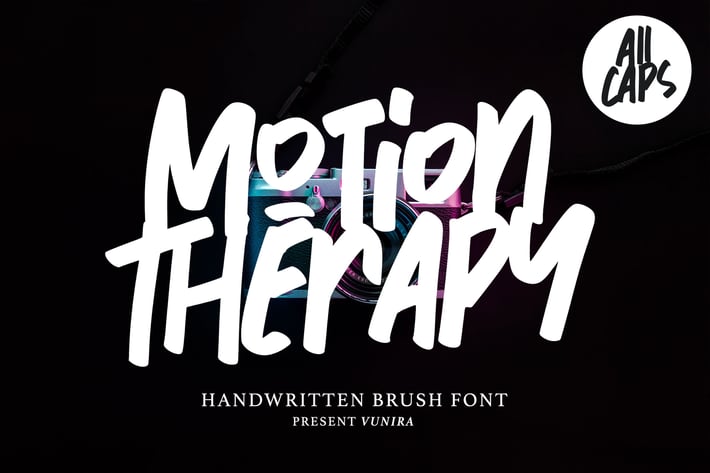
Motion Therapy | Handwritten Brush Font
Motion Therapy | Handwritten Brush Font with a calligraphy style, So beautiful on invitation like greeting cards, branding materials, business cards, quotes, posters, and more!